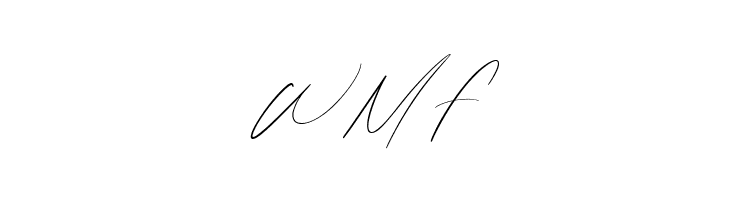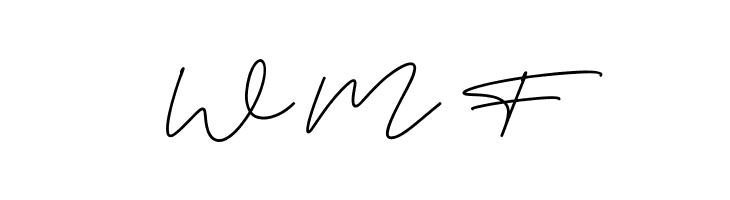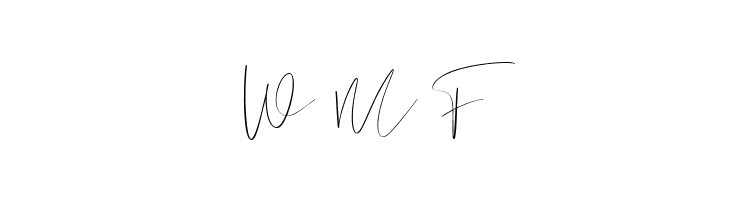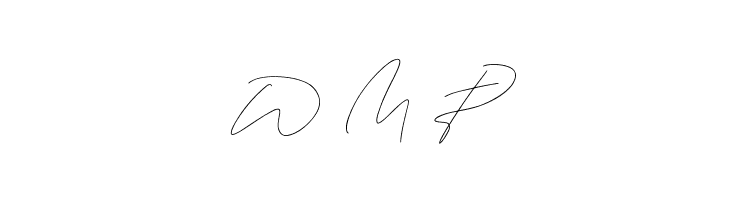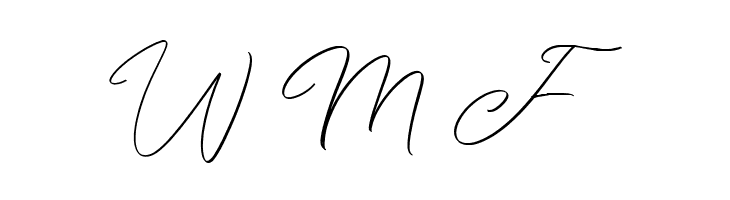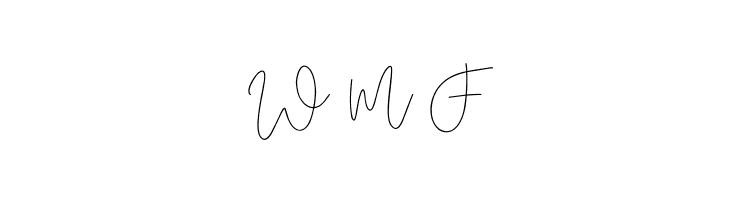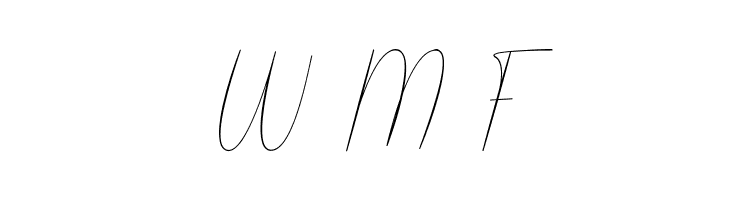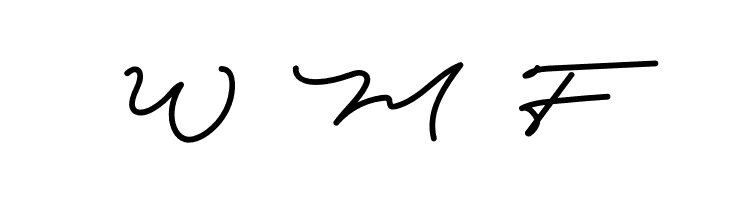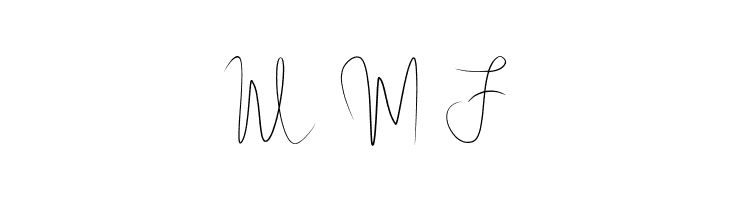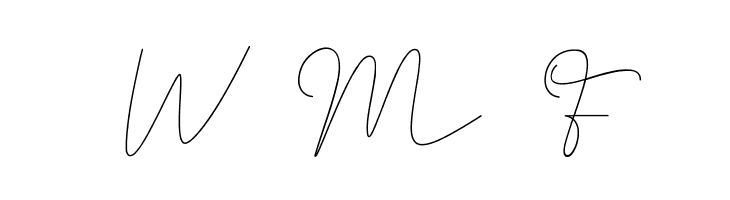
An elegant, flowing script font with delicate strokes and graceful curves.
A delicate, flowing script font with elegant, continuous strokes.
A delicate, flowing script font with elegant, handwritten style.
An elegant, flowing script font with delicate, continuous strokes.
A delicate and flowing script font with elegant, cursive letterforms.
An elegant, flowing script font with delicate, continuous strokes.
A delicate, cursive script font with a handwritten style.
A fluid, cursive font with elegant, connected letters and delicate strokes.
An elegant, flowing script font with delicate, intricate letterforms.
An elegant, flowing script font with a delicate, handwritten style.